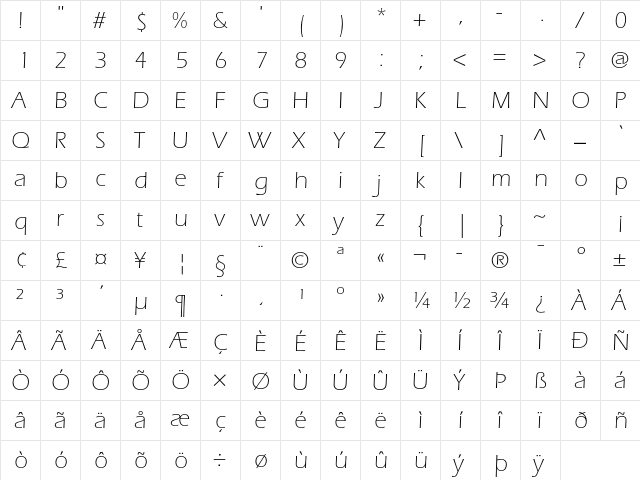
ITC Eras Std Light
| Designer | Albert Boton, Albert Hollenstein |
Design Context for ITC Eras Std Typeface
ITC Eras Std takes a measured approach to typography — its balanced proportions and neutral character make it a reliable workhorse for both digital and print work. Its slender proportions lend an understated elegance to any composition.